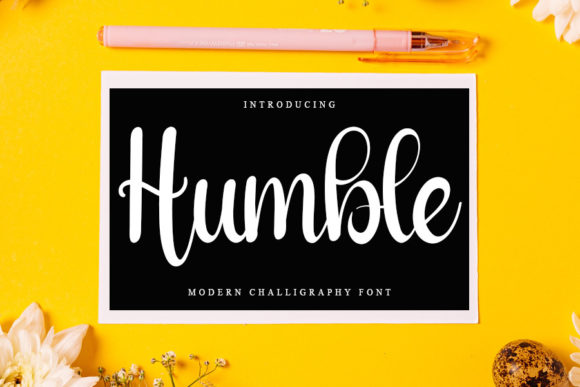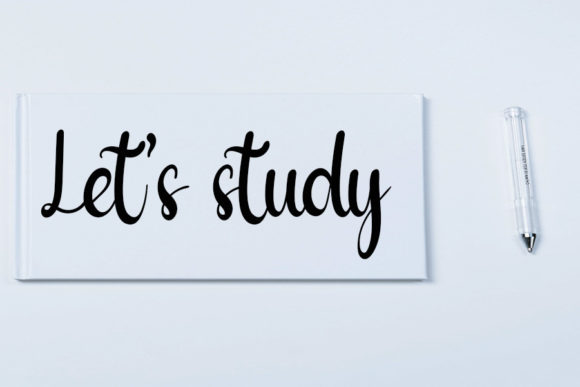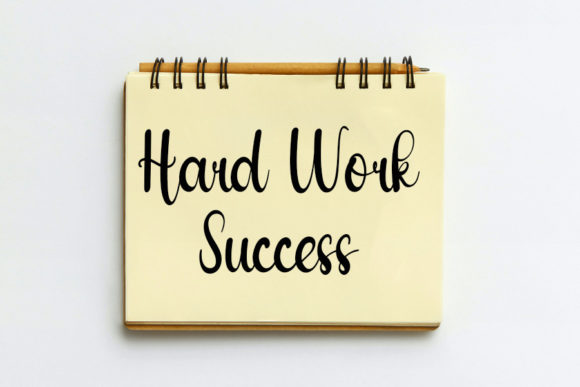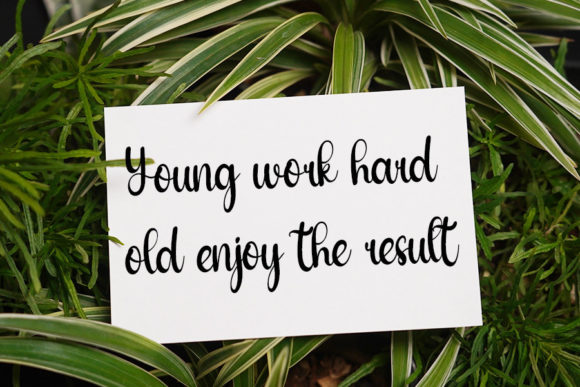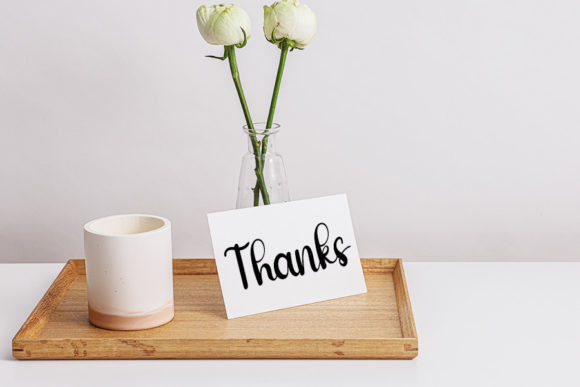
Humble Font
About Humble Font
“Humble”: Redefining Elegance with Trendy Handwritten Font
Experience the essence of sophistication with “Humble,” a font that seamlessly blends contemporary style with timeless classic calligraphy. With its impeccable form and trendy handwritten aesthetic, “Humble” exudes a sense of modernity while paying homage to tradition.
Drawing inspiration from the graceful strokes of classic calligraphy, “Humble” adds a contemporary twist that sets it apart. Its fluid lines and impeccable form create an atmosphere of elegance and refinement, making it the perfect choice for a wide range of design projects.
But “Humble” offers more than just visual appeal—it’s also highly functional. With its PUA encoding, accessing all glyphs and swashes is effortless, allowing for seamless customization of your text. Whether you’re adding decorative elements or experimenting with different letterforms, “Humble” empowers you to bring your creative vision to life with ease.
From branding projects to social media graphics, “Humble” is the perfect companion for adding a touch of sophistication to your designs. Its contemporary atmosphere and impeccable form make it a standout choice for any project that requires a trendy yet elegant aesthetic.
So why settle for ordinary typography when you can elevate your designs with the timeless charm of “Humble”? Unlock its potential today and let its trendy handwritten font redefine elegance in your creative endeavors.